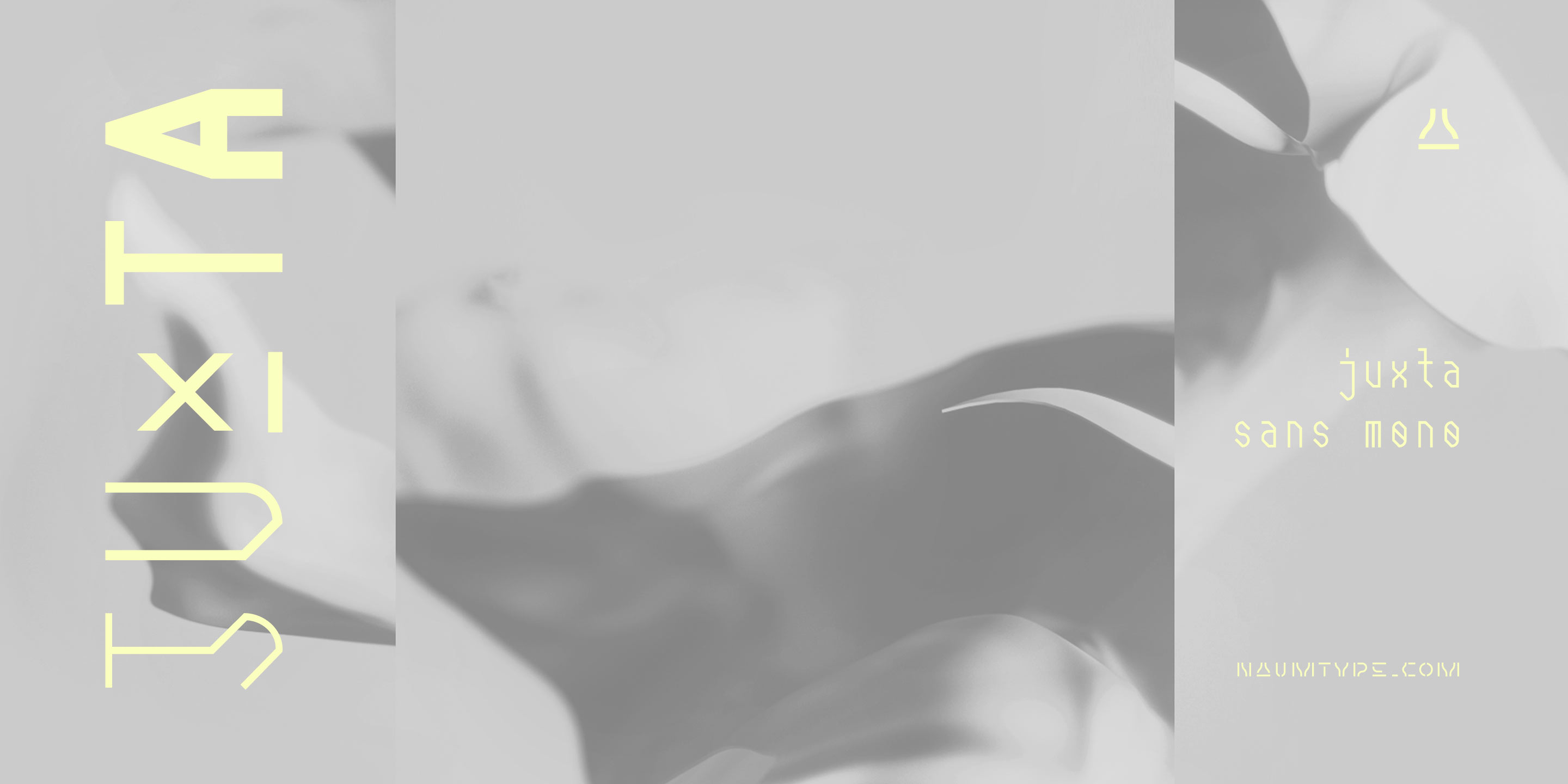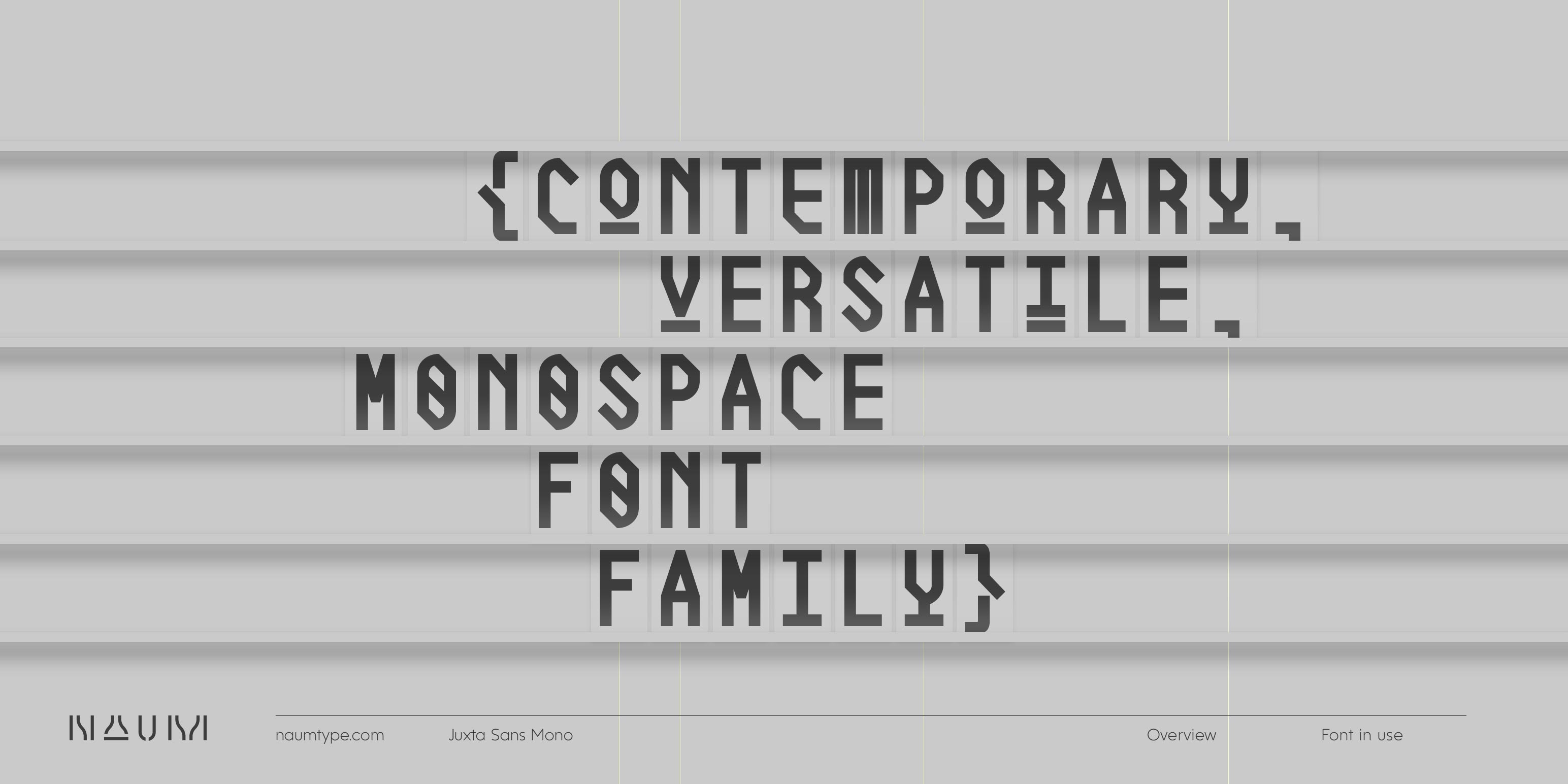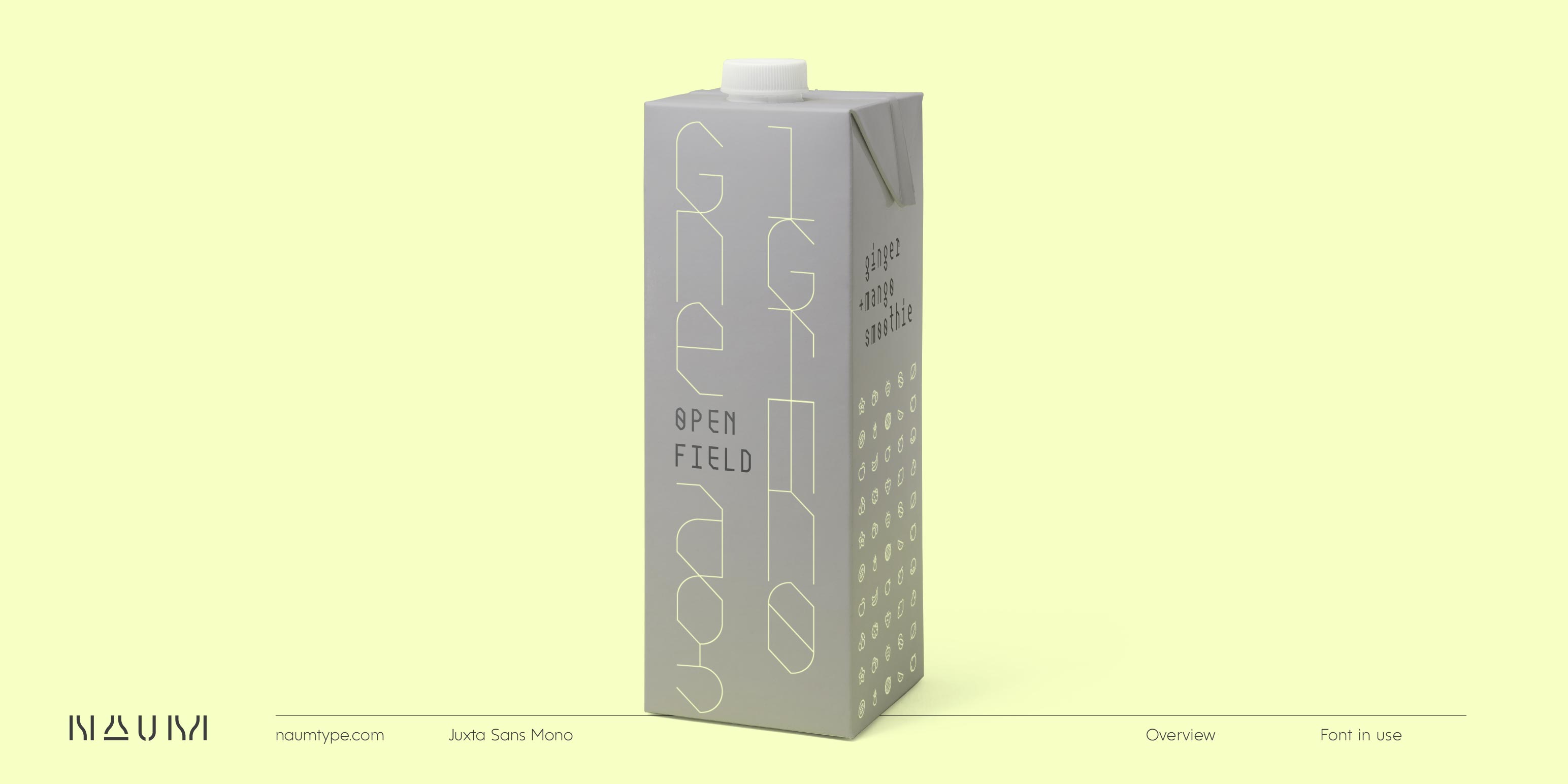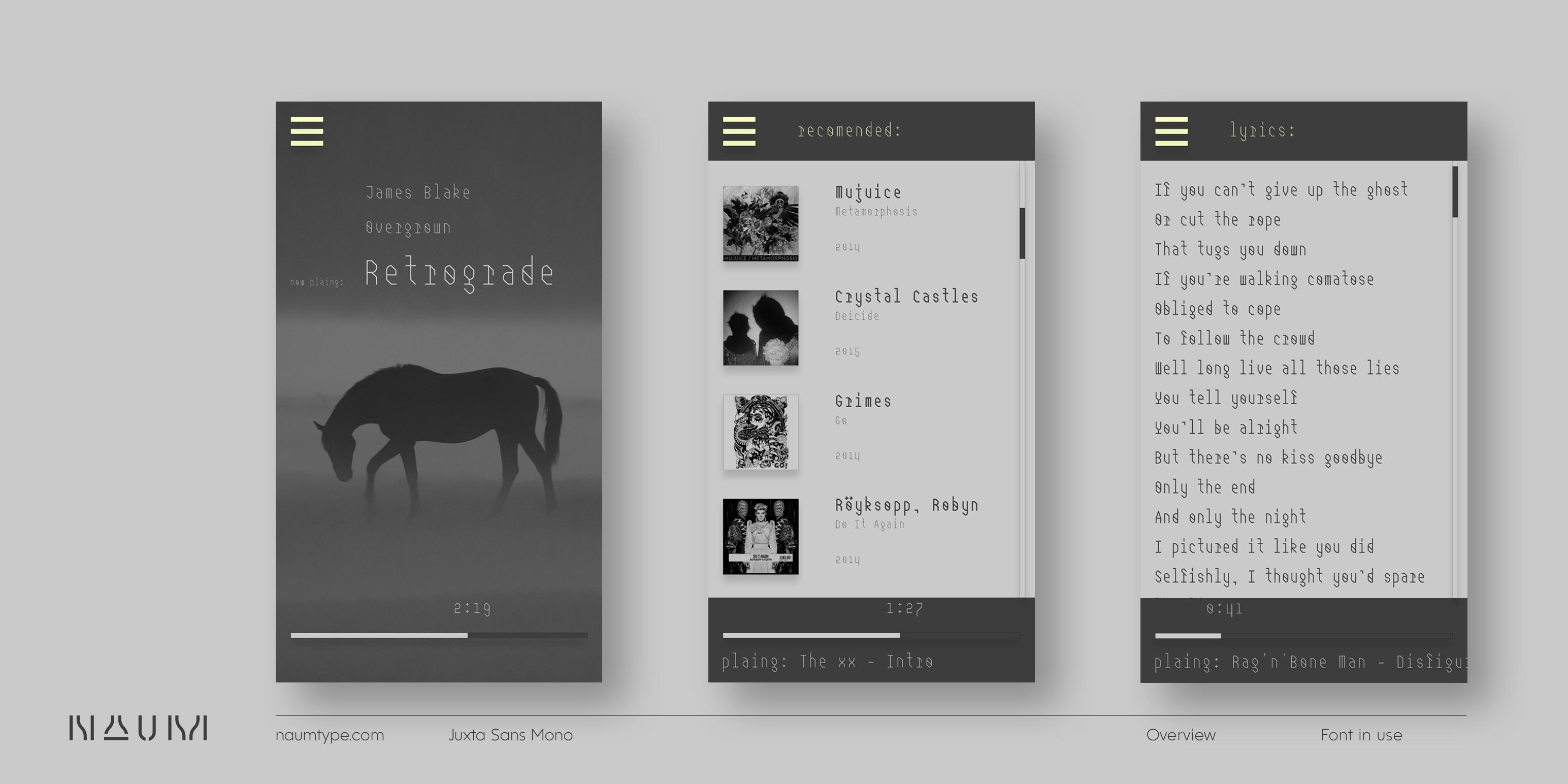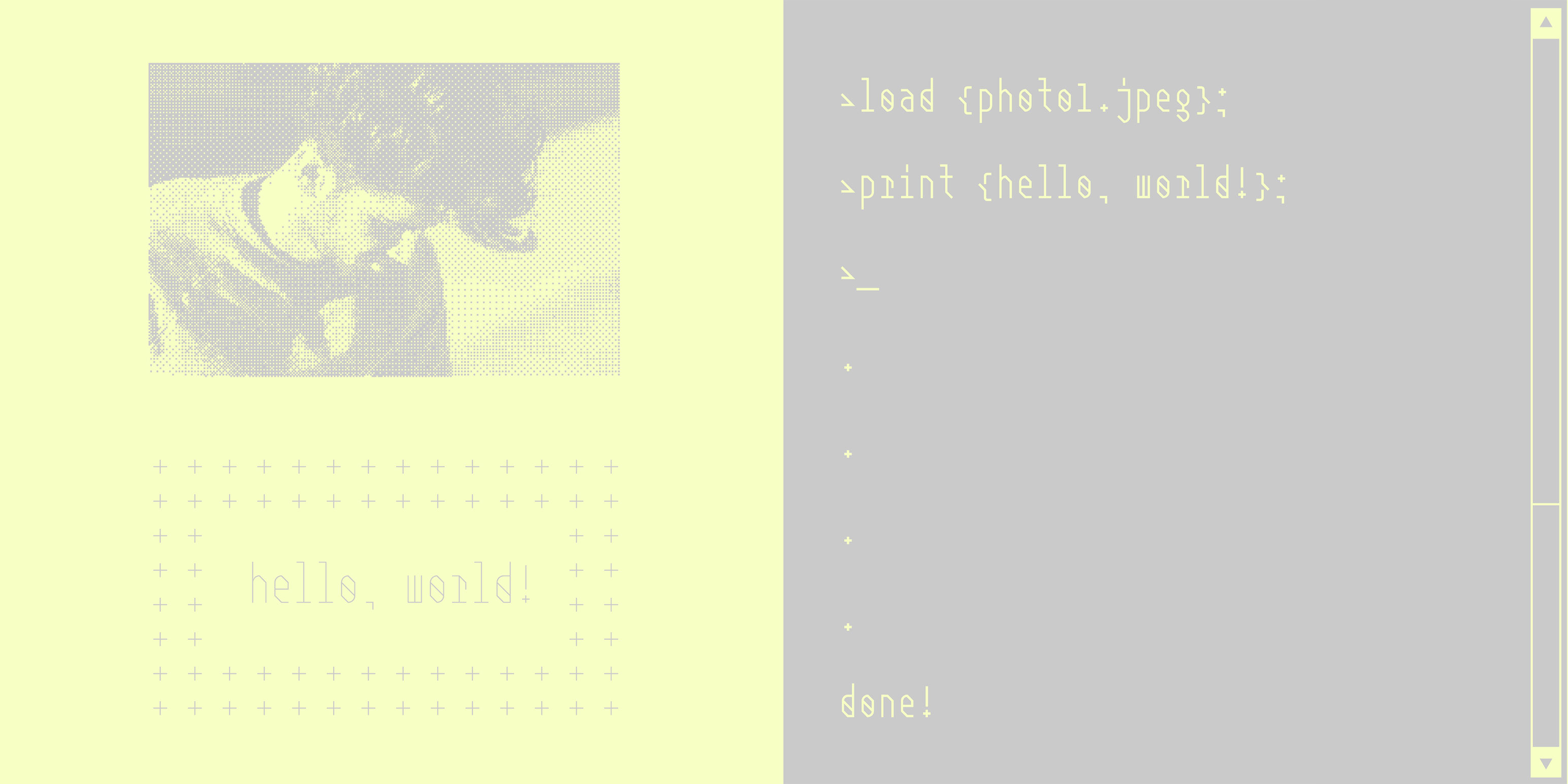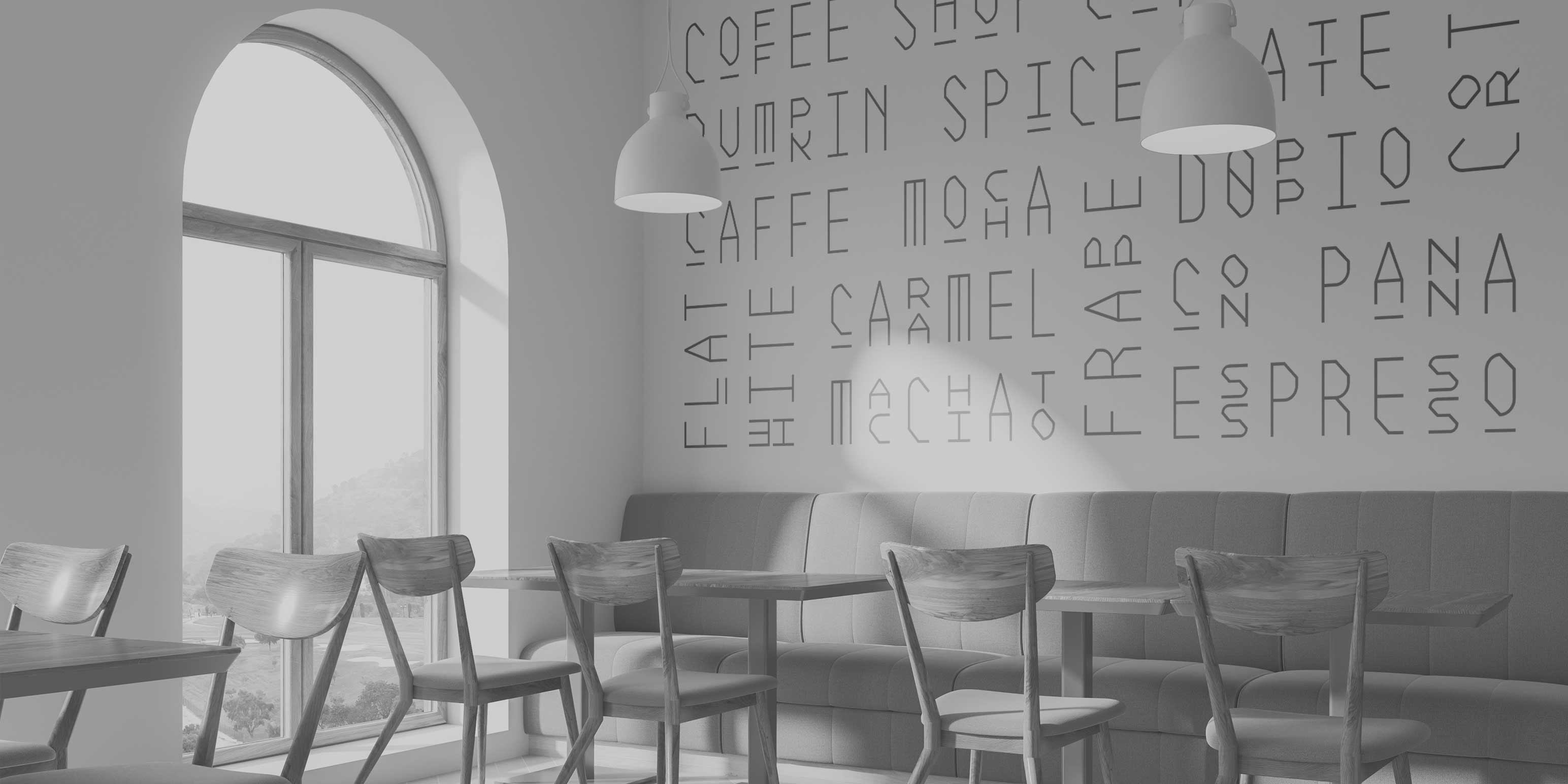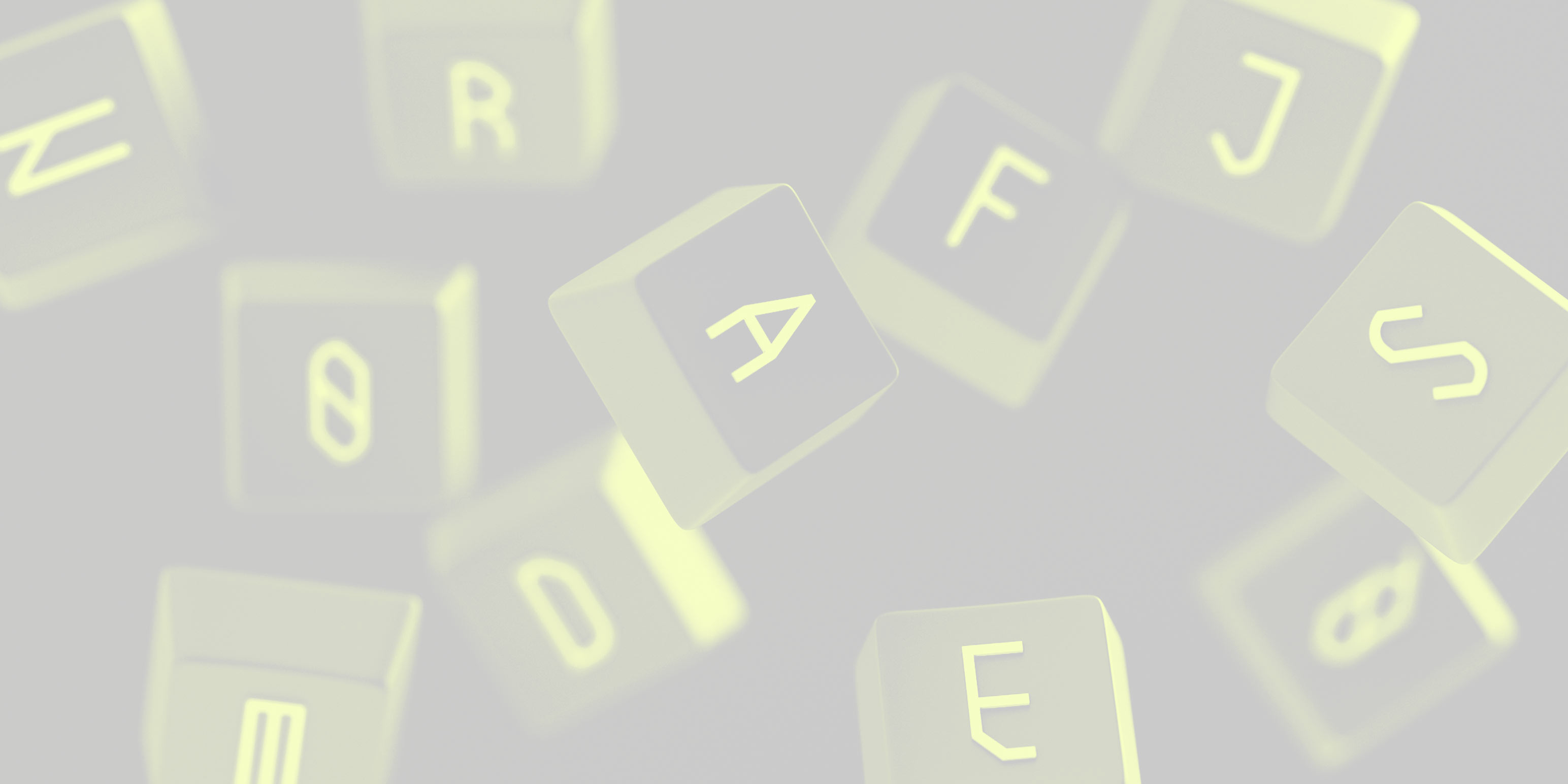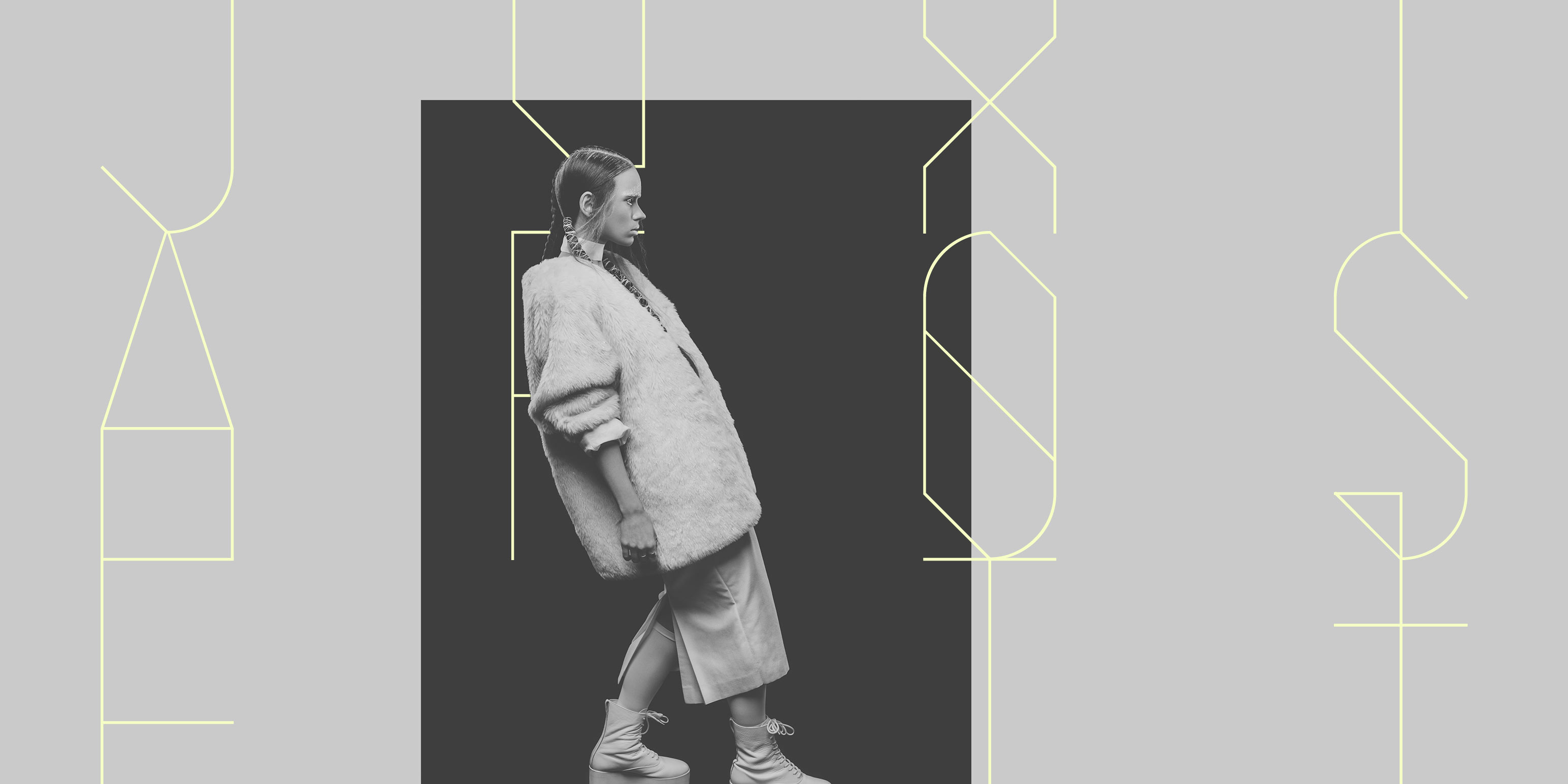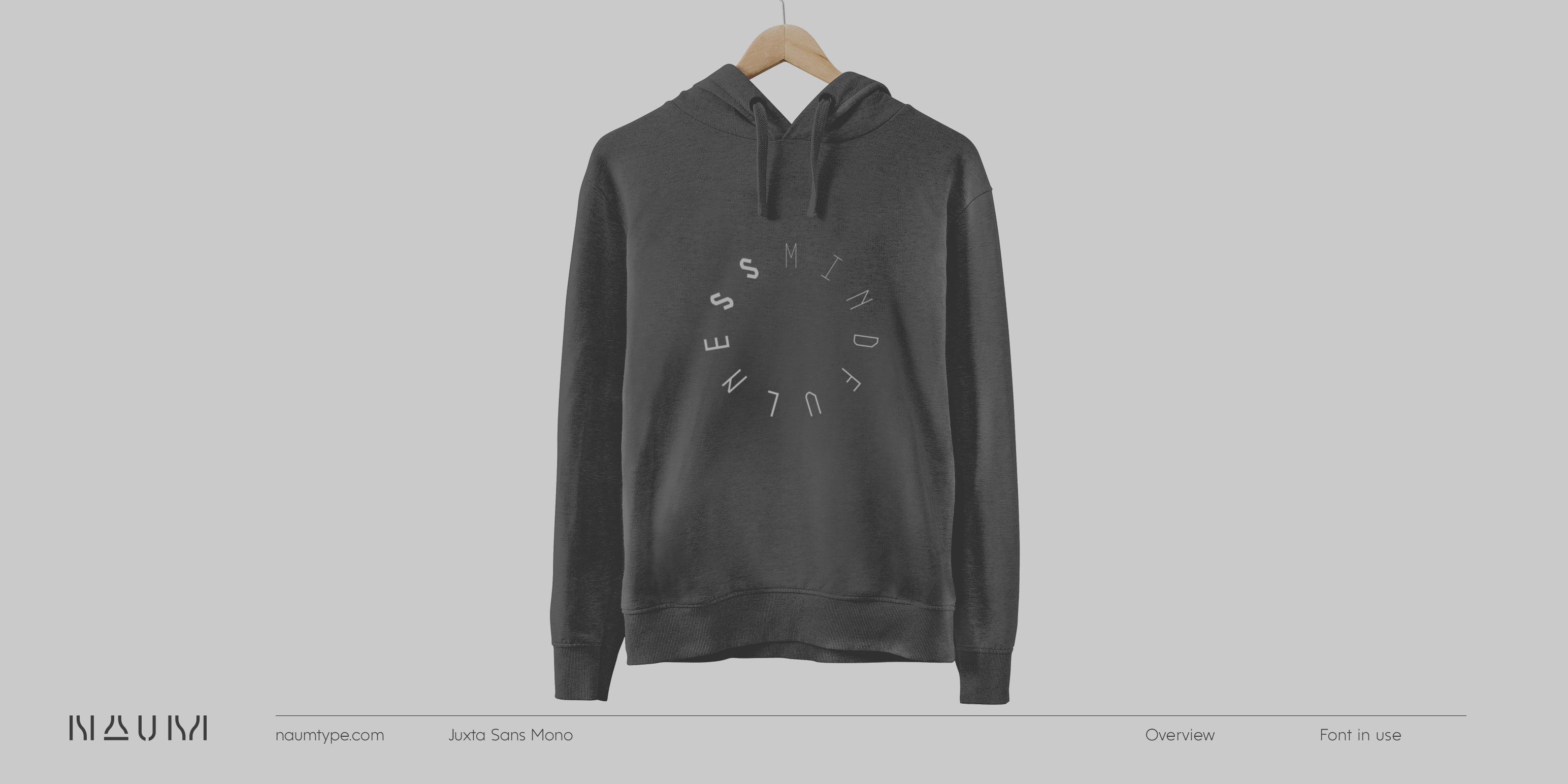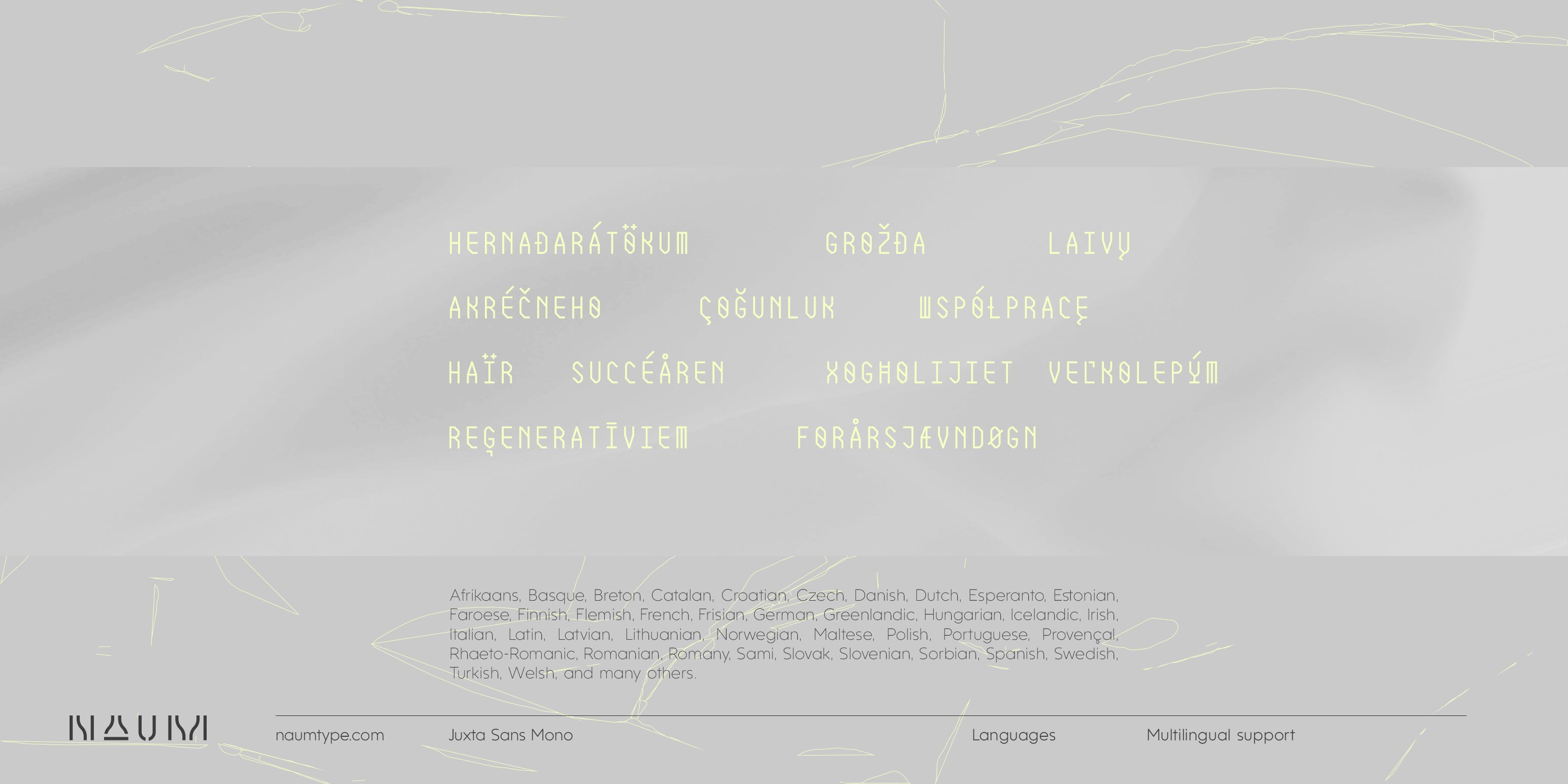
Juxta Sans Mono is an experimental monospace sans, an extension of the Juxta superfamily.
During the creation of the Juxta script, I felt that the aesthetics and the main idea of the font had promising potential and I started thinking about a pair for it. So the idea of Juxta Sans Mono was formulated.
Juxta has several style-forming elements: 45° beveled or cross out bowls, squared m and w arcs and other unobvious letter structures.
Despite its unusual and sometimes odd (f, g, m) letterforms, Juxta Sans is fairly easy to read due to its monospace font nature and wide spacing.